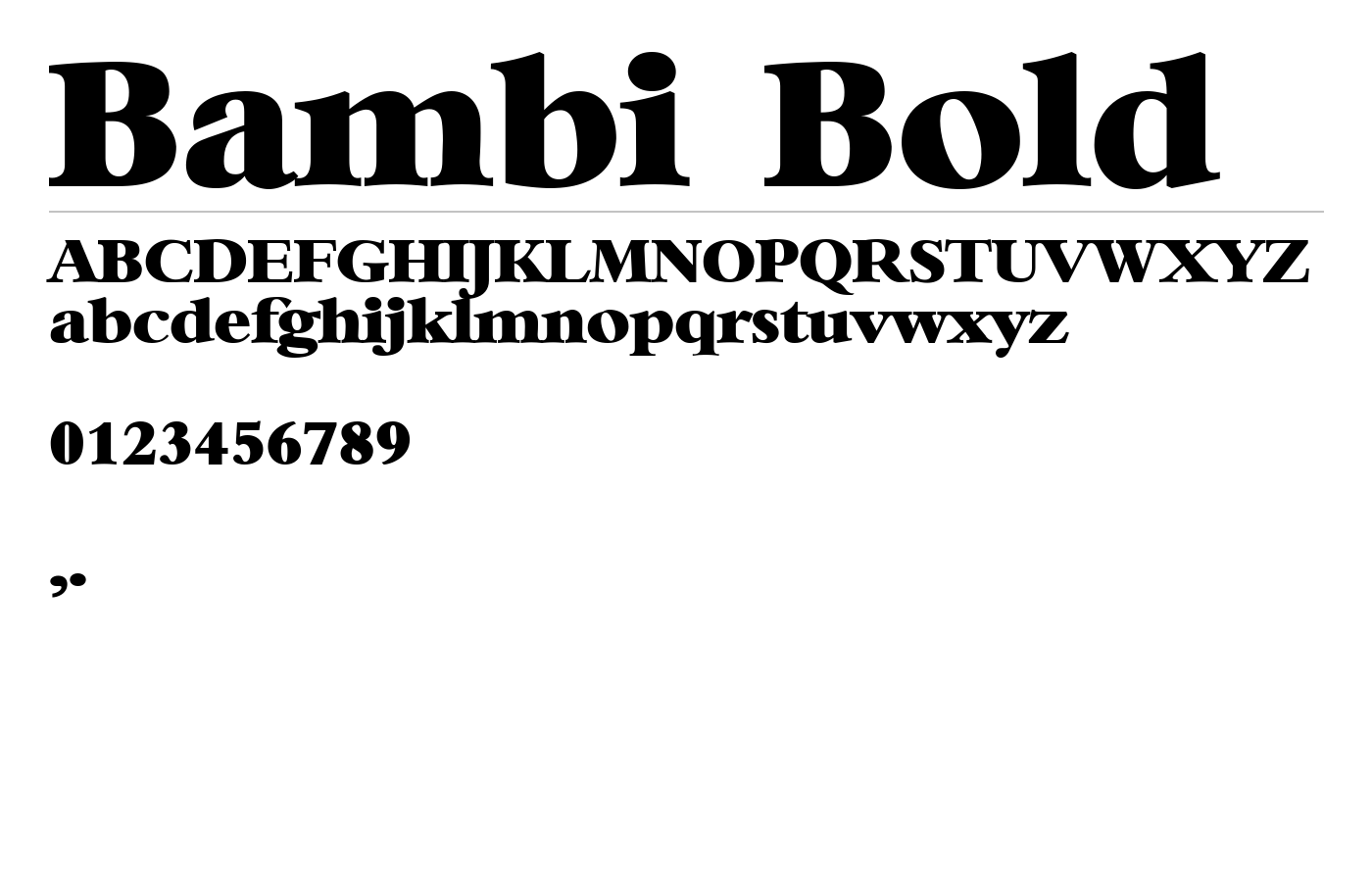
Bambi Bold is a robust serif font characterized by its bold weight, strong contrast between thick and thin strokes, and classic bracketed serifs that create a confident yet elegant appearance. With its high x-height and traditional double-story lowercase letters, it offers excellent readability while conveying a timeless, authoritative feel, making it ideal for branding, editorial headlines, and packaging where a sense of sophistication and impact is desired.
Bambi Bold Font
About Bambi Bold Font